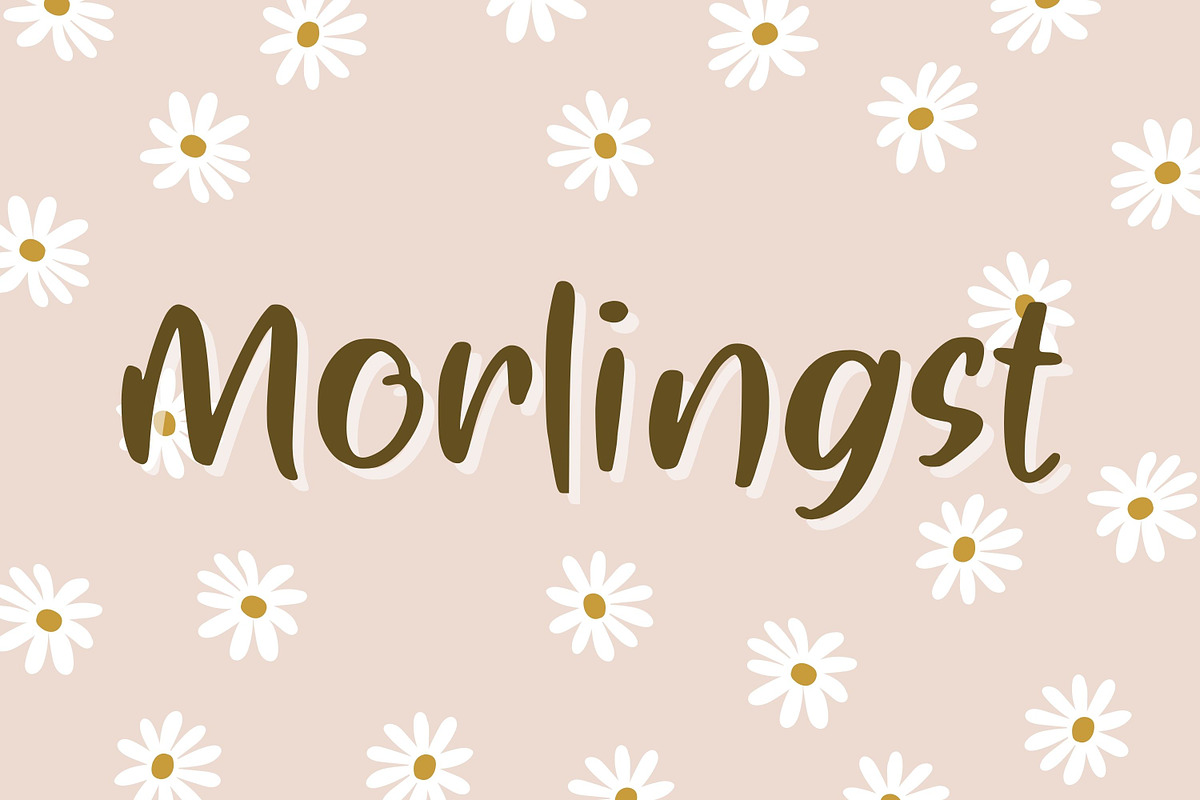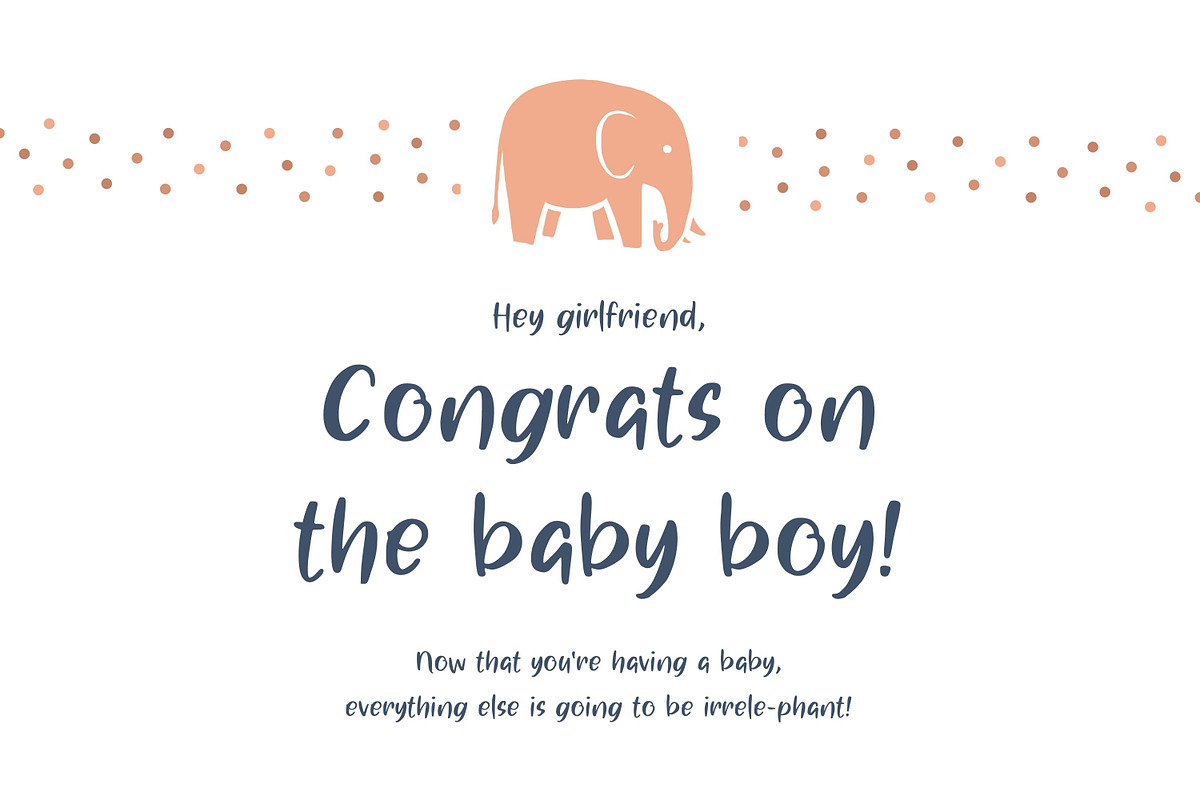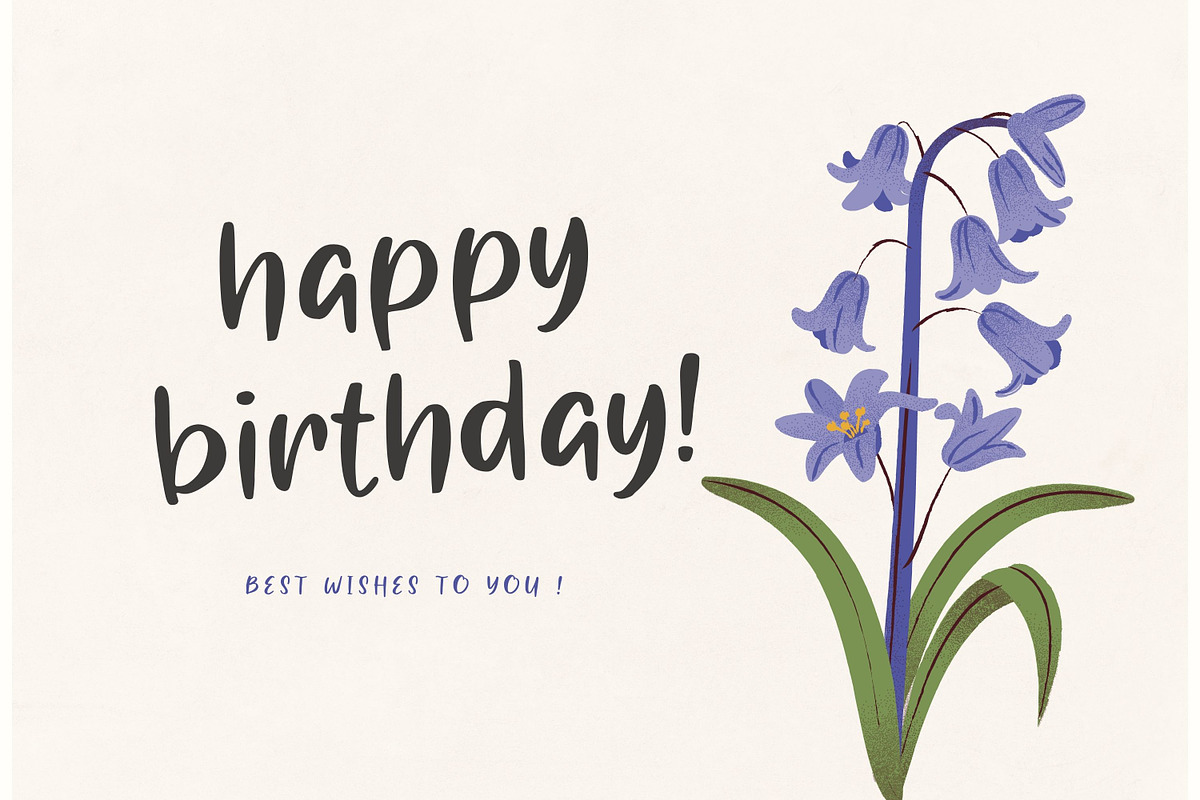
Morlingst
Presenting Morlingst, a beautifully detailed script handwriting font. Each line of Morlingst has been meticulously handcrafted, intending to become a well-loved addition to your design toolbox. It exudes an easy-going charm that translates into a down-to-earth, highly readable, and incredibly versatile typeface. Regardless of its application, may it be against a busy backdrop or as an attention-grabbing headline, the multifaceted Morlingst promises a standout performance. Its unassuming sophistication ensures that your creativity won't go unnoticed.